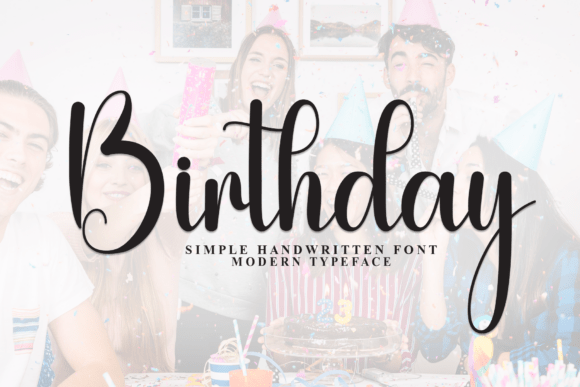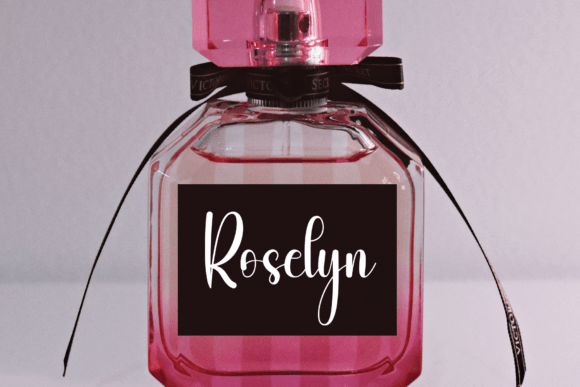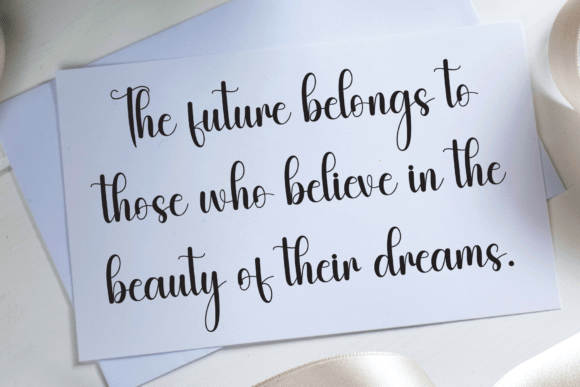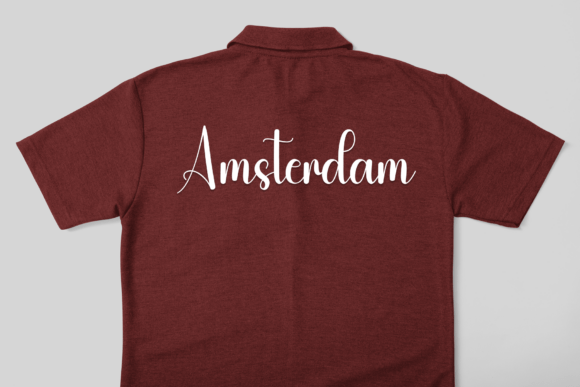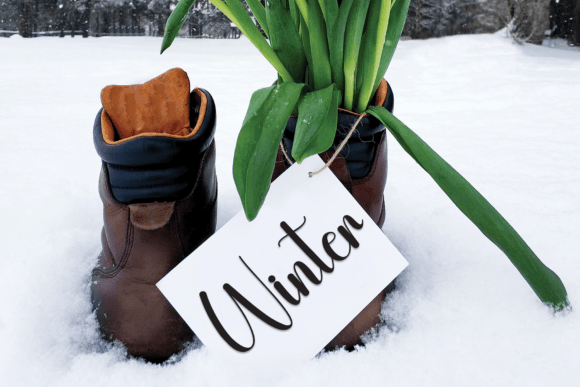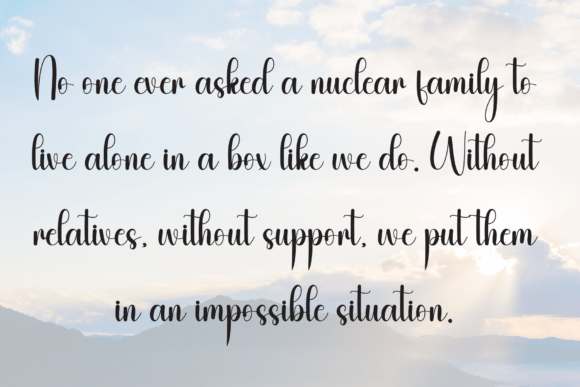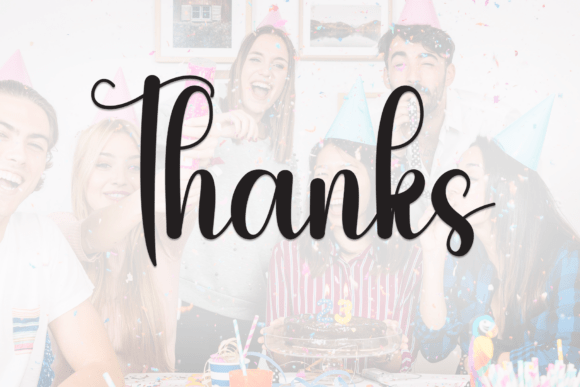
Celebrate Life’s Special Moments with the Birthday Font
As a designer, there’s no greater joy than bringing a client’s vision to life. I still remember the look on her face when she saw her custom wedding invitation come together – the delicate font, the elegant layout, and the subtle color scheme all combined to create a truly unforgettable piece. And at the heart of it all was the Birthday Font, a beautiful, handwritten typeface that added a touch of intimacy and celebration to the design.
The Birthday Font is a timeless and understated choice for designers looking to add a light, human touch to their projects. With its tall, thin strokes and graceful, looping ascenders, it feels like a personal note written with a fine-liner pen. Whether you’re working on a wedding guest book, a personalized gift tag, or an elegant event program, the Birthday Font is the perfect selection to make your design truly special.
Birthday Font Key Features
- Unique Characteristics: Distinctive, hand-drawn style with bold lines and playful flourishes, perfect for adding a celebratory touch to designs.
- Font Style: Available in uppercase and lowercase letters, numbers, and punctuation, with a range of stylistic alternates and ligatures for added creativity.
Birthday Font Review
Overall, I was pretty excited to dive into the Birthday Font, especially since it’s specifically designed for celebrating the big day. Let’s see how it fares.
- The birthday-themed icons are a great touch. They add a playful and festive vibe to the design.
- The font itself is clear and legible, making it perfect for invitations or party decorations.
- The color palette is vibrant and fun, which fits the birthday theme perfectly.
- The font lacks customization options. It would be great to have more control over the size, color, and style.
- The design feels a bit generic and could benefit from more unique elements to make it stand out.
- The birthday-themed icons, while cute, may not be suitable for all birthday celebrations (e.g., milestone birthdays or more formal events).
Overall, the Birthday Font is a fun and playful design that’s perfect for casual birthday celebrations. While it has some limitations, it’s still a great option for those looking for a quick and easy way to add some festive flair to their designs.
The Birthday Font is perfect for:
- Creating birthday invitations and party decorations.
- Designing custom birthday cards and gift tags.
- Adding a personal touch to social media posts and captions.
Alternatives to Birthday Font for Designers
Great Vibes is a beautiful, cursive font perfect for creating a whimsical and celebratory atmosphere. It’s ideal for birthday invitations, social media posts, and other party-related content. Compared to Birthday Font, Great Vibes is more elegant and sophisticated, making it a great choice for designers who want to add a touch of luxury to their designs.
Alex Brush is a elegant, handwritten font that’s perfect for creating a warm and inviting atmosphere. It’s ideal for birthday cards, gift tags, and other personalized content. Compared to Birthday Font, Alex Brush is more refined and polished, making it a great choice for designers who want to add a touch of sophistication to their designs.
Pacifico is a beautiful, modern script font that’s perfect for creating a relaxed and beachy atmosphere. It’s ideal for birthday invitations, social media posts, and other summer-related content. Compared to Birthday Font, Pacifico is more casual and laid-back, making it a great choice for designers who want to add a touch of fun and playfulness to their designs.